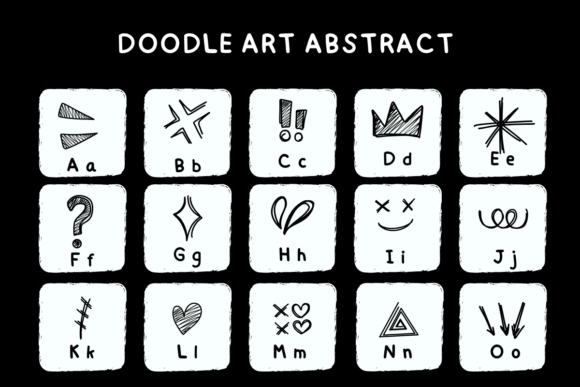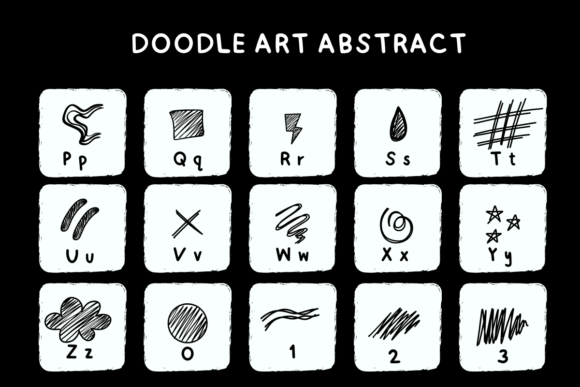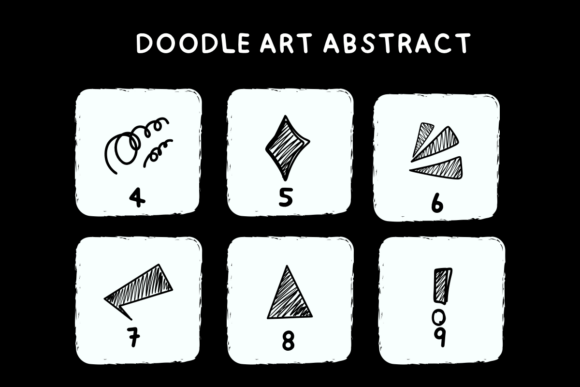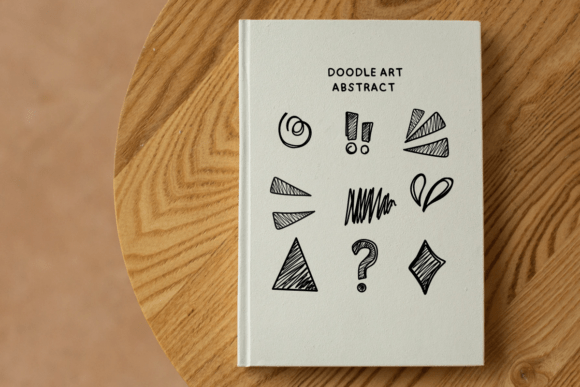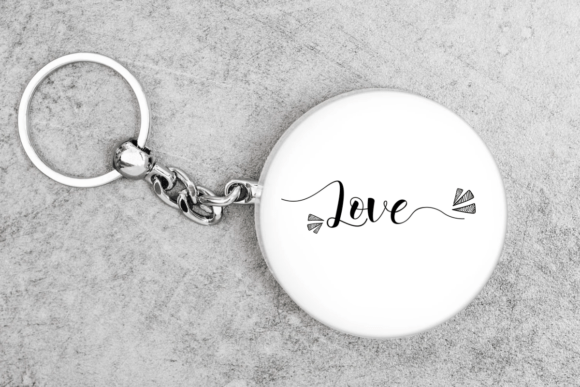
Introduction to Doodle Art Abstract Font
Unleash your creativity with Doodle art abstract, an artistic dingbats font designed to inspire.
Perfect for infusing a playful touch to your scribbled notes or giving an imaginative flare to your greeting cards, Doodle art abstract goes beyond the ordinary With its versatility, it can also add a unique charm to a wide range of designs from eye-catching banners and compelling content to stylish mugs, bespoke cards, trendy shirts and elegant stationery.
Key Features of Doodle Art Abstract Font
Why Choose Doodle Art Abstract Font?
Doodle Art Abstract Font offers exceptional quality and versatility, making it a valuable addition to your design toolkit. Whether you’re creating for personal projects or commercial use, Doodle Art Abstract Font delivers professional results.